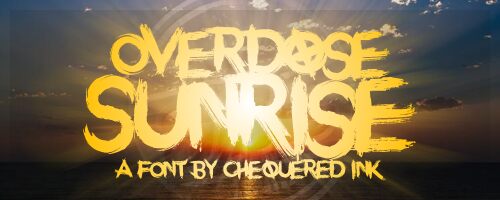
Overdose Sunrise
Overdose Sunrise is a captivating font that exudes a raw, gritty charm. Designed by the talented team at Chequered Ink, this brush-style typeface boasts a delightfully "trashed" aesthetic, with uneven strokes and irregular edges that lend it an undeniable personality. Its dynamic, hand-crafted appearance makes it a versatile choice, suitable for a wide range of design applications – from bold display typography to eye-catching branding and packaging.
Overdose Sunrise's bold, uncompromising style is sure to leave a lasting impression, making it a compelling option for those seeking to inject a touch of edgy, experimental flair into their creative endeavors.